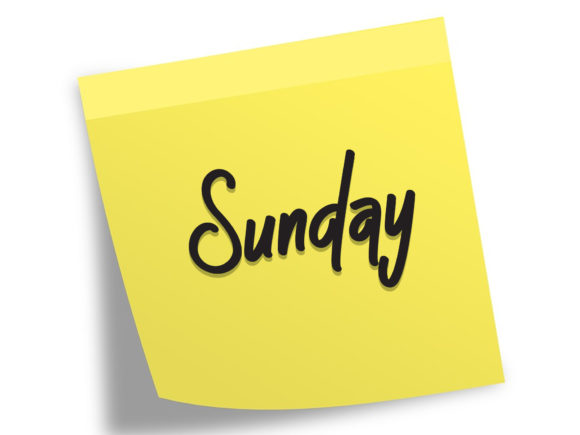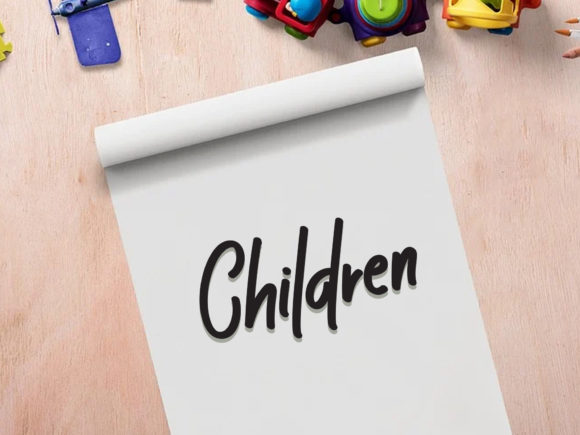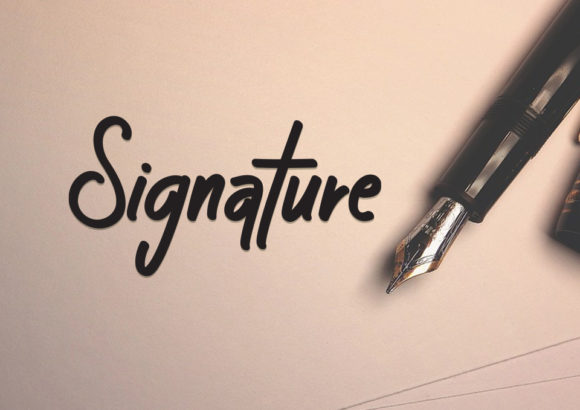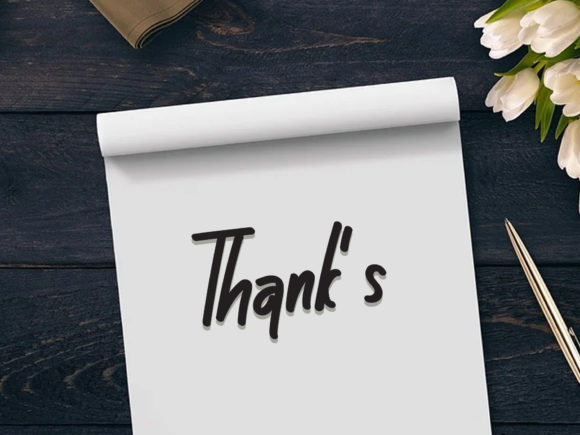
Sandwich Font
About Sandwich Font
Sandwich is a unique handwritten font that was crafted with care to produce the expected results. This font can be used to write titles, invitations, letters, and other types of products.